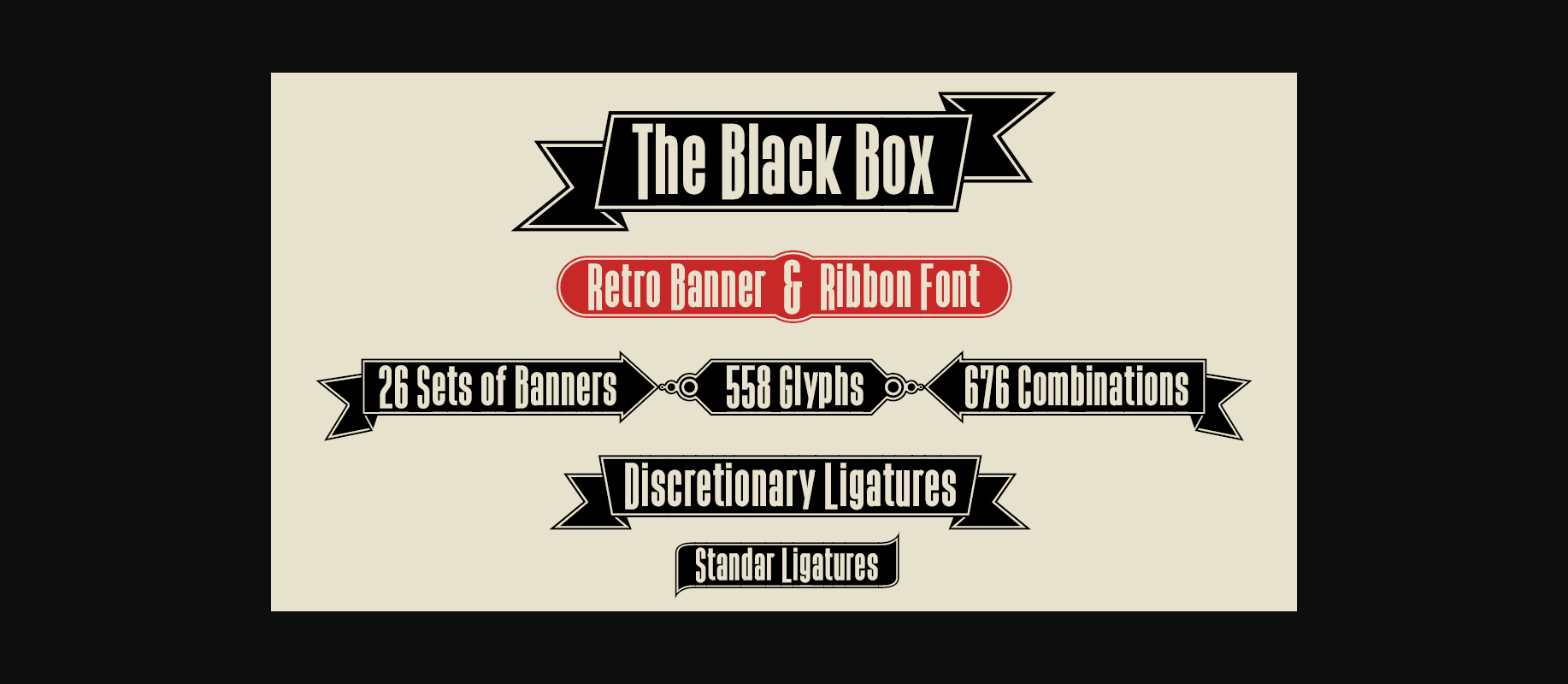
About The Black Box Font
The Black Box is a condensed sans serif font with a frame around it. The font contains 26 sets of box closers with 676 possible combinations to create unique retro banners & ribbons.
Keys for basic ornaments: () [] {} |¬ _
Example use:Â {The Black Box}
Bitcoin symbol (ligatures): b#